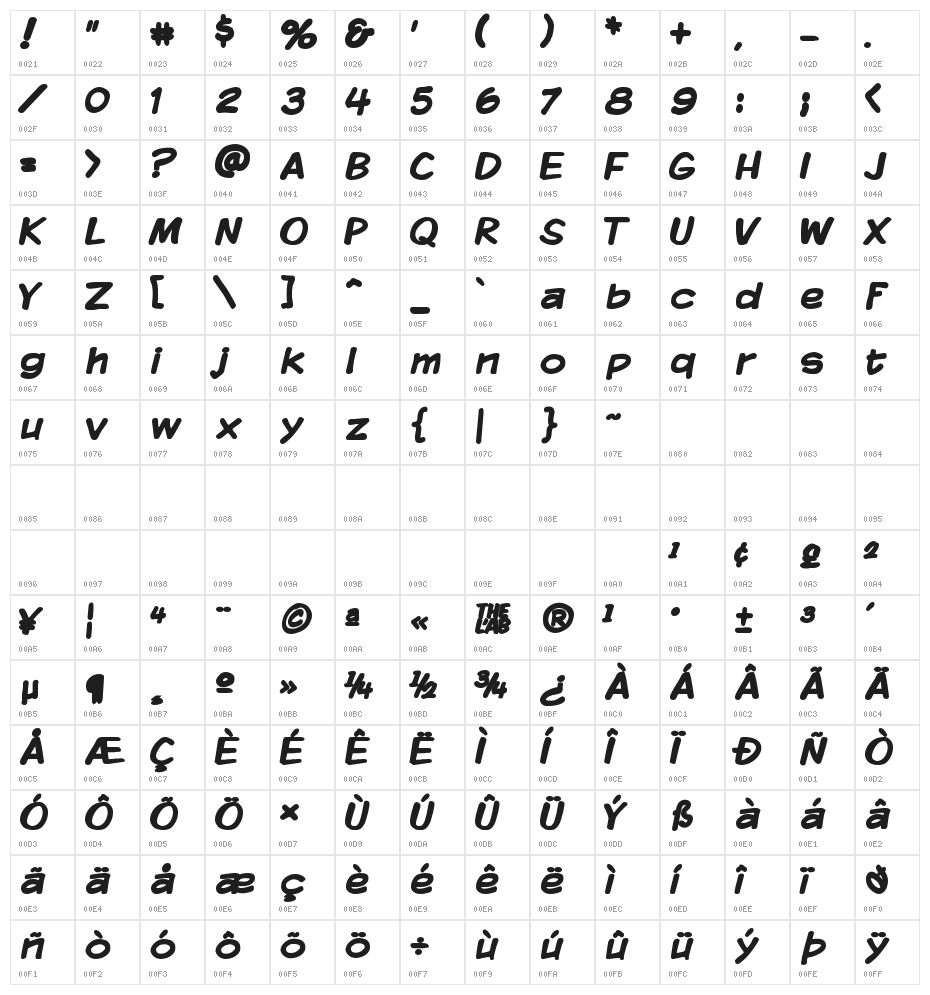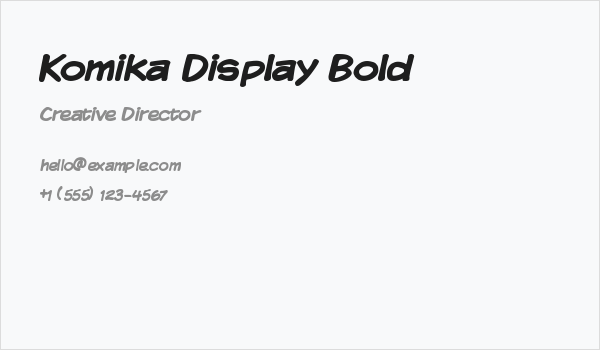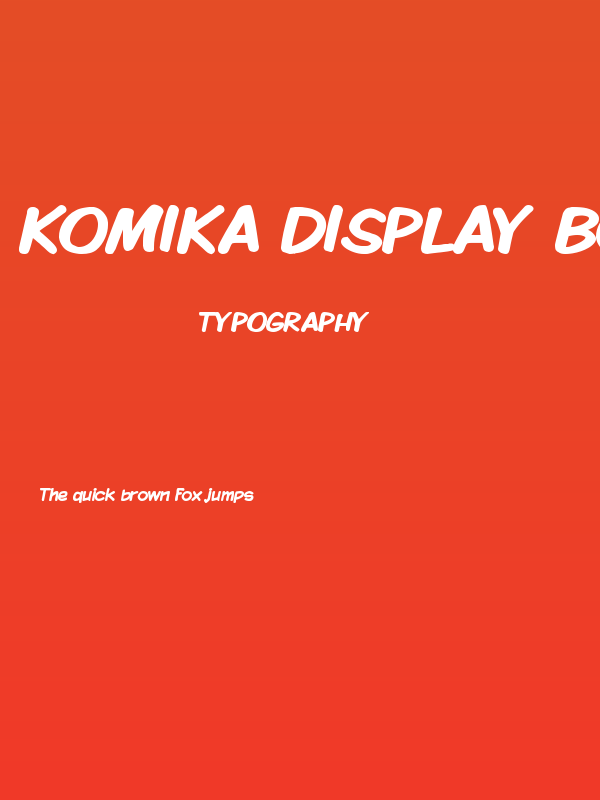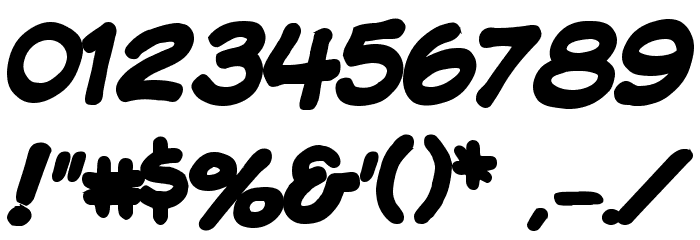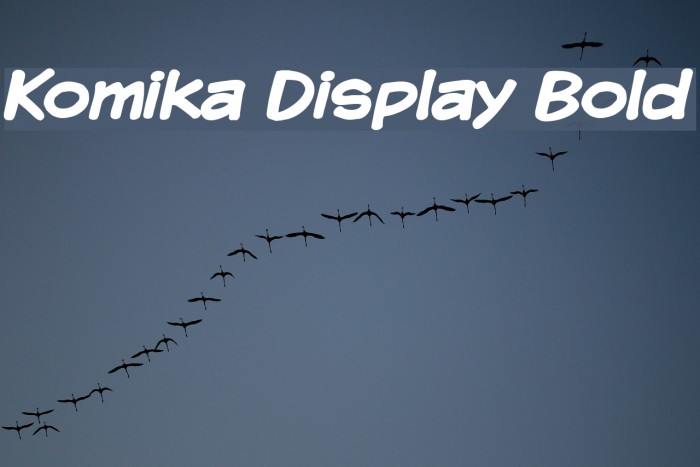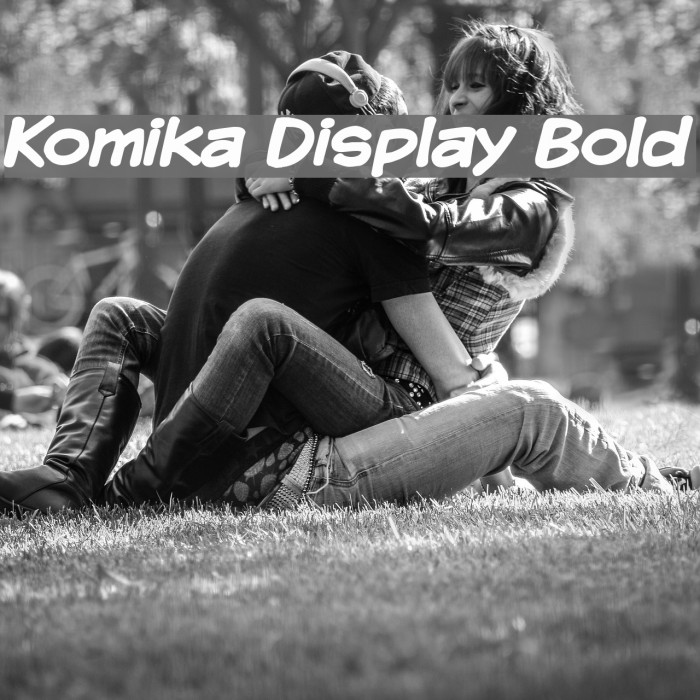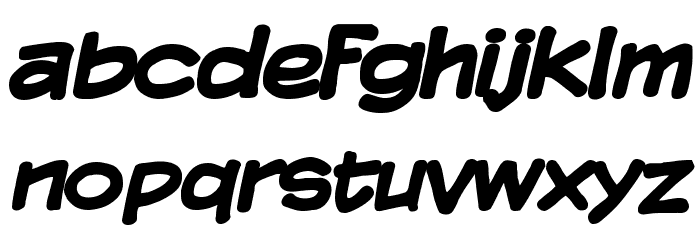
Komika Display Bold Font
This font features a playful and bold style, characterized by its thick, rounded strokes and slightly slanted letters. The uppercase and lowercase letters maintain a consistent width, creating a cohesive look. The numbers and special characters follow the same bold and rounded aesthetic, making them easily readable and visually appealing. The font's design is reminiscent of comic book lettering, giving it a fun and informal vibe. Its boldness ensures high visibility, making it suitable for attention-grabbing headlines or playful design projects.
| Overall Style | Playful, Comic |
| Proposed Projects | Perfect for comic books, children's books, playful branding, and eye-catching headlines. |